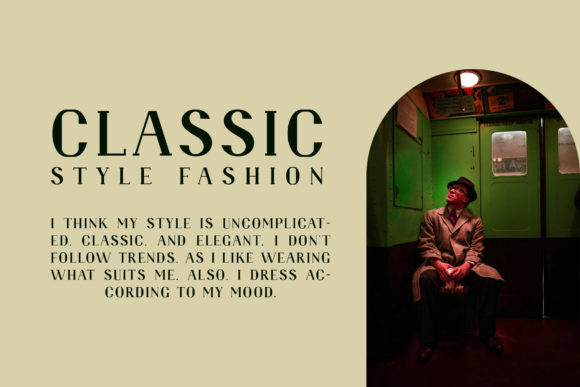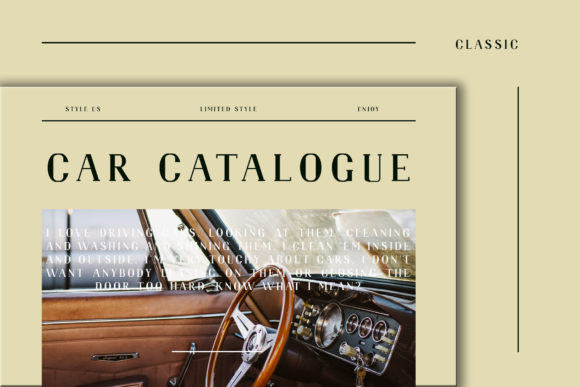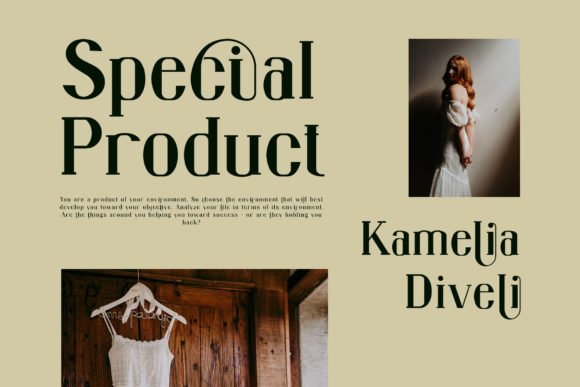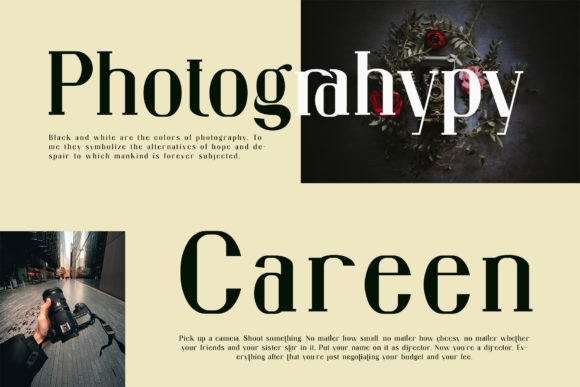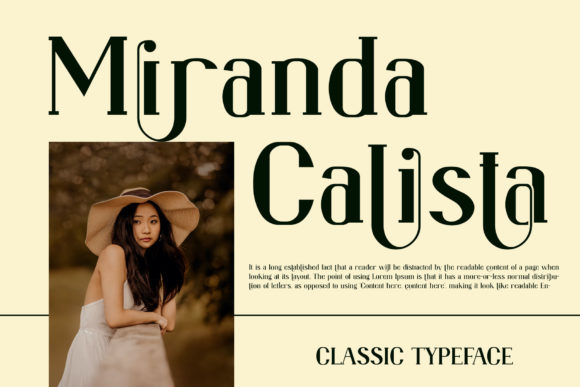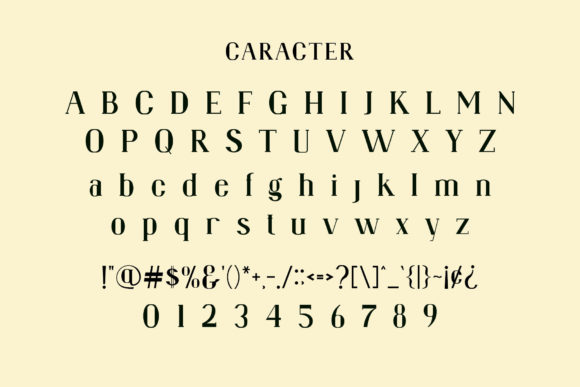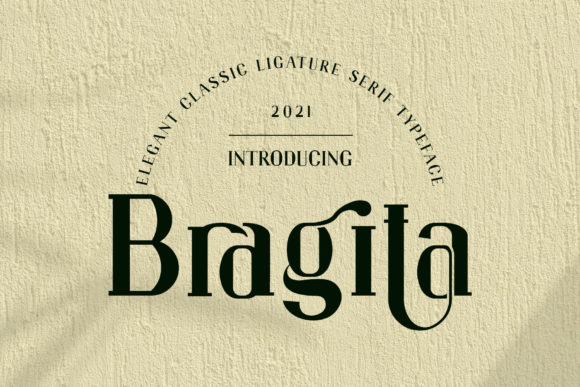
I’ll never forget the struggle I faced while working on a luxury brand’s logo design project. The client wanted a font that exuded elegance, sophistication, and a touch of nostalgia. I scoured the internet, tried countless fonts, but nothing seemed to fit the bill. That was until I stumbled upon Bragita Font. ✨
As I explored Bragita, I realized it was the perfect blend of modern and classic. Its elegant serif design made it an instant favorite for my project. In this article, I’ll share my experience with Bragita Font, its features, and how to make the most of it in your designs.
A Comprehensive Review of Bragita Font
What I Love About Bragita Font
• ✅ Elegant and modern serif design
• ✨ Perfect for logos, magazines, and social media posts
• 💫 Works great for both digital and print designs
• 🎨 Highly versatile and adaptable to various design styles
While Bragita Font is an excellent choice, there are a few things to keep in mind: ⚠️
• 🤔 Limited availability of certain OpenType features in some software
• ⚠️ May require manual kerning for optimal results
The Designer Inspiration Behind Bragita Font
Bragita Font was crafted with the intention of creating a modern, yet nostalgic font that would cater to designers seeking a touch of elegance and sophistication. The designer aimed to create a font that would work seamlessly across various design platforms and applications.
Q: What type of designs is Bragita Font best suited for?
A: Bragita Font is perfect for logos, magazines, social media posts, and any design that requires a touch of elegance and sophistication.
Q: Does Bragita Font support OpenType features?
A: Yes, Bragita Font supports various OpenType features, including ligatures, stylistic alternates, and glyphs.